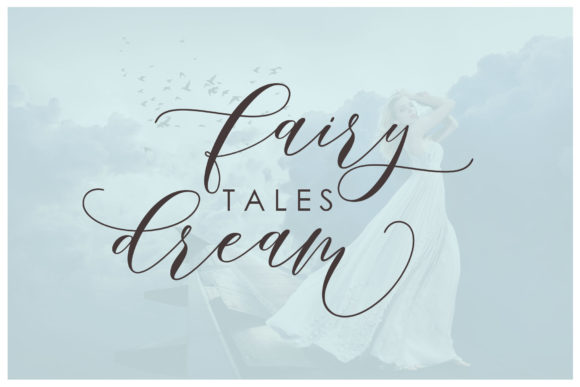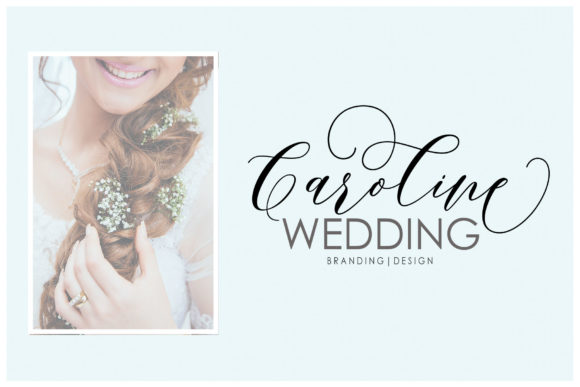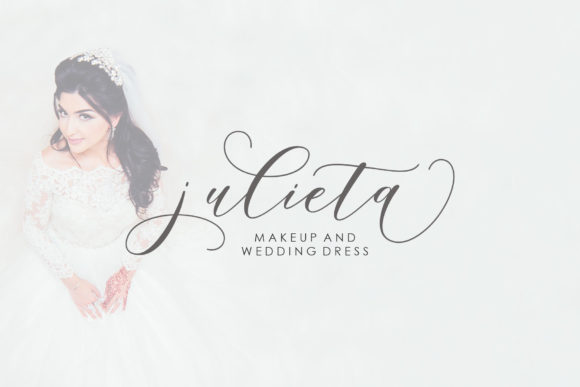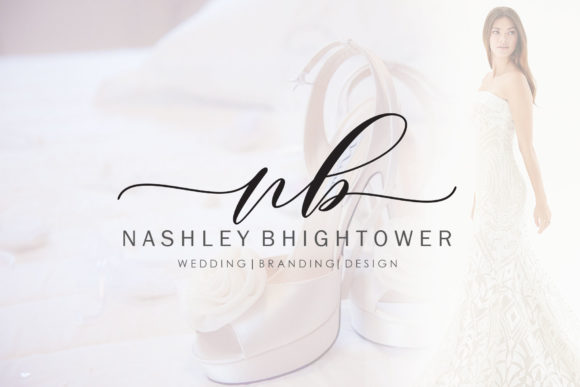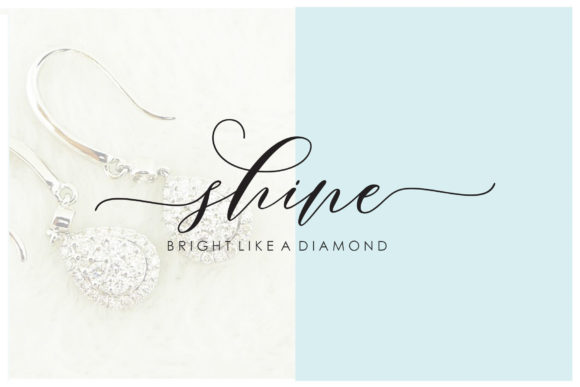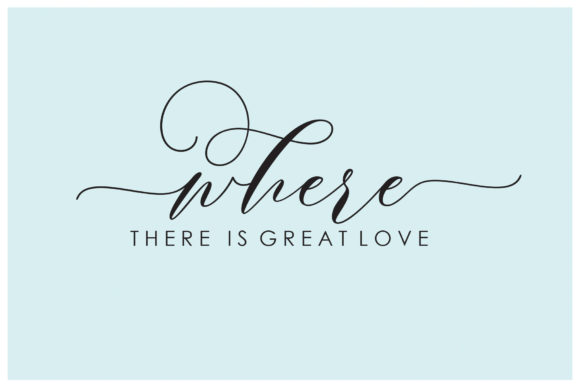
The Perfect Script for Your Masterpiece
Have you ever been stuck on a design project, pouring over fonts and feeling like none of them quite capture the essence of your vision? I know I have. It’s a frustrating feeling, but one that’s easily solved with the right tool. For me, that tool is the Funland Script Font.
This elegant calligraphy script is perfect for luxurious designs that demand sophistication and style. Whether you’re creating a wedding invitation, a logo, or a simple greeting card, Funland Script Font is sure to elevate your design to the next level. As a designer, it’s invaluable to have a versatile font like Funland Script Font in your arsenal, allowing you to tackle a wide range of projects with confidence and flair.
Funland Script Font Key Features
- Resolution: The Funland Script Font is designed for high-resolution displays and prints, making it suitable for use in various mediums, including digital and print materials.
- Unique Characteristics: The font features a playful, cursive script with elegant flourishes, making it ideal for creating eye-catching headings and titles.
- Legibility: Despite its decorative nature, the Funland Script Font remains highly legible, ensuring that the text remains clear and easy to read.
- Comprehensive Character Set: The font includes a comprehensive character set, including uppercase and lowercase letters, numbers, and punctuation marks, making it suitable for a wide range of applications.
Funland Script Font Review
As a designer, I was excited to try out the Funland Script Font. ✨ One thing that immediately caught my attention was its playful, handwritten feel. The font is perfect for creating a whimsical and carefree atmosphere, making it ideal for projects like children’s books, party invitations, or even social media graphics.
Another aspect that I liked about the font is its versatility. ✨ It comes in a range of weights, from Light to Bold, allowing users to easily adjust the font’s size and style to suit their design needs. The font also supports a variety of languages, making it a great option for international projects.
- ⚠️ Limited character set: While the font is suitable for most everyday use, it may not be the best option for projects that require a wide range of special characters or symbols.
- ⚠️ Not ideal for body text: Due to its script nature, the font can be difficult to read in large blocks of text. It’s best used for headings, titles, or short phrases.
In conclusion, the Funland Script Font is a great addition to any designer’s toolkit. While it has some limitations, its playful feel and versatility make it a perfect choice for a variety of projects. With a little creativity and restraint, this font can add a touch of whimsy and fun to any design.
The Funland Script Font is ideal for creating playful and whimsical designs, such as:
1. Birthday party invitations and decorations.
2. Social media graphics and ads.
3. Menu boards and signage.